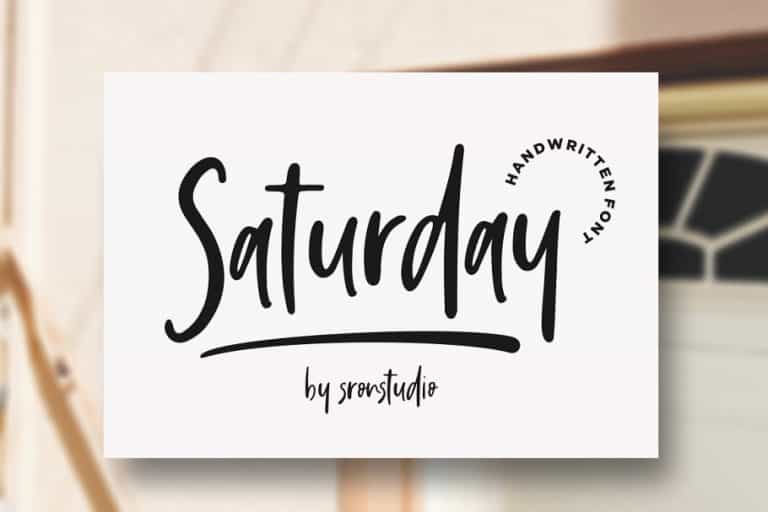
Introducing Saturday Vibes Font. It is made and distributed by Sronstudio. Saturday Vibes Script Font – a new modern & fresh handlettering font, which makes this font look natural, modern and perfect for any awesome project. Saturday Vibes can be used for a lot of different project like logos & branding, invitation, stationery, wedding designs, social media posts advertisement , product packaging, designs, label photography watermark special events or anything.